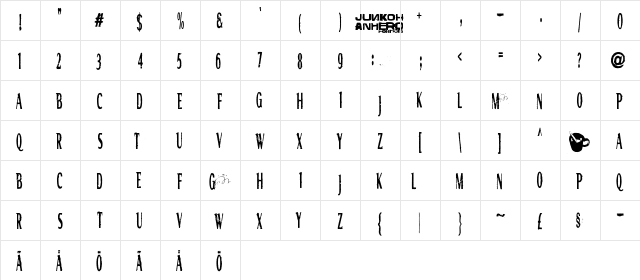
RGMB 6044 Str Regular
Design Context for RGMB 6044 Str Typeface
RGMB 6044 Str takes a measured approach to typography — its balanced proportions and neutral character make it a reliable workhorse for both digital and print work.